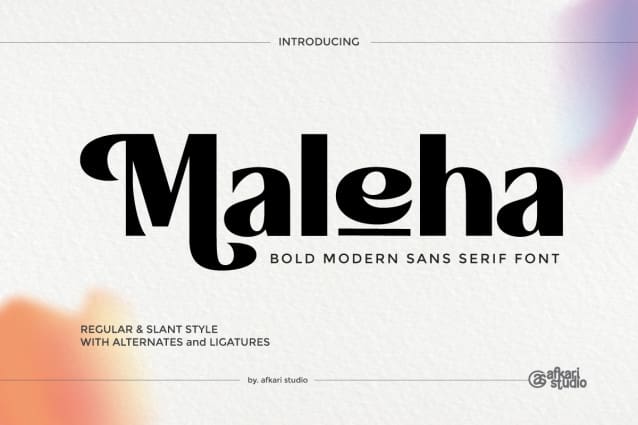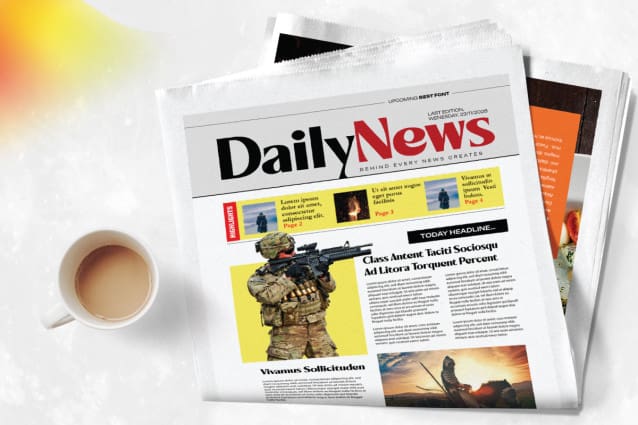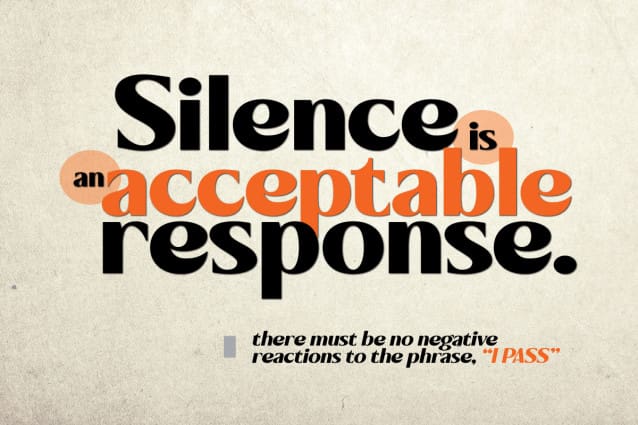
Maleha Font
Maleha Font, a bold and sophisticated modern sans serif font designed to elevate your projects with its confident and sleek aesthetic. Crafted with precision, Maleha embodies a perfect balance between professionalism and contemporary style.
With two versatile styles—regular and slant—Maleha offers a dynamic range of possibilities, enabling you to effortlessly convey a sense of authority and modernity in your designs.
The bold strokes and clean lines of Maleha’s characters exude confidence, making it ideal for headlines, branding, editorial designs, logos, posters, and more. Its versatile nature ensures readability across various mediums while maintaining a strong visual impact.
Maleha’s boldness is matched by its adaptability; whether for digital or print, its clarity and elegance remain consistent. The regular style presents a crisp, clean appearance, while the slant adds a touch of dynamic flair, perfect for emphasis or adding a contemporary twist to your typography.
Maleha Font – Bold Modern Sans Serif Font